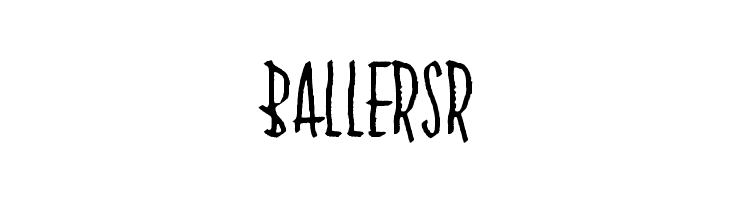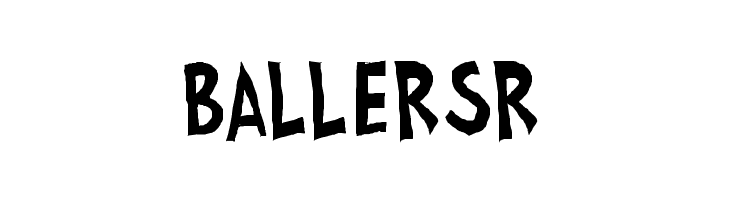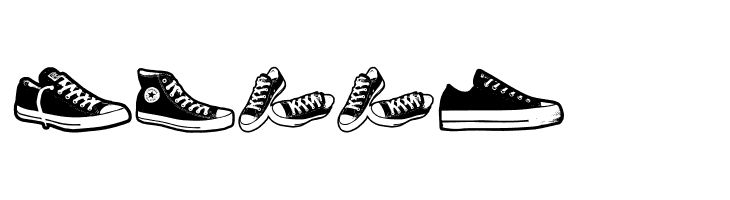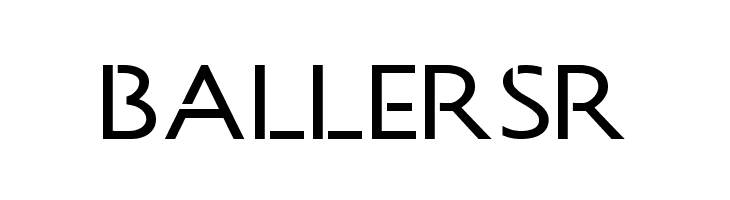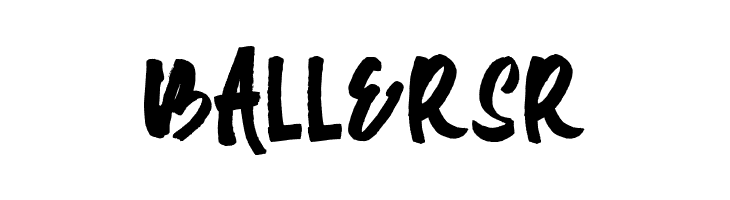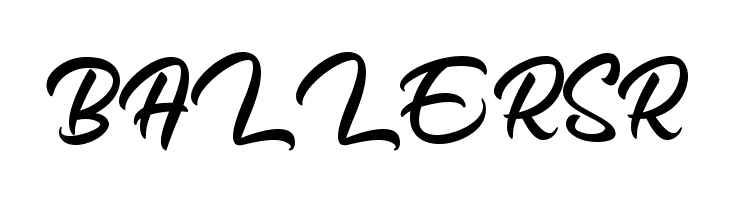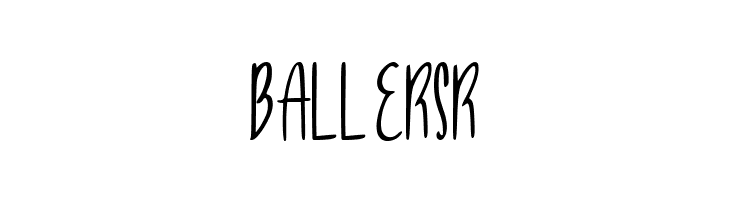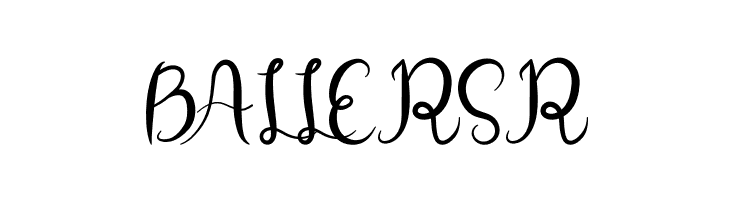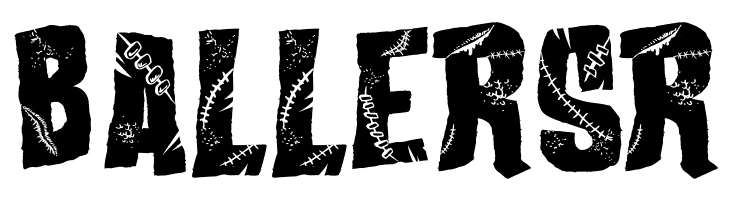
A bold, jagged, and dynamic font with a hand-cut appearance.
A bold, italicized font with a dynamic, brush-like style.
A bold, angular, and italicized font with a dynamic, edgy style.
A decorative font with cursive script letters inside bold heart shapes.
A bold, textured font with a stitched, handcrafted appearance.
Decorative icon font with seasonal and nature-themed pictograms.
A hand-drawn, playful font with irregular strokes and a vintage-modern blend.
A bold slab serif font with strong, geometric characters and block-like serifs.
A bold, geometric font with strong, uniform strokes and a commanding presence.
Hand-drawn sneaker illustrations form each character.
A bold, playful font with boxed characters and a hand-cut appearance.
A bold, modern typeface with geometric letterforms and strong visual impact.
A playful, handwritten font with tall, narrow characters and rounded edges.
A distressed, vintage-style font with a bold, weathered appearance.
A bold, clear font ideal for signage and public notices.
An elegant, flowing script font with a modern, handwritten style.
A graceful script font with decorative swashes and flowing cursive style.
A charming and elegant script font with flowing, cursive letterforms.
) ) A bold, slanted font with dynamic and energetic characteristics.
A modern, geometric font with clean lines and a minimalist style.
A bold, brush-style font with high contrast and dynamic character shapes.
A bold, brush-style font with a dynamic, hand-painted look.
A playful, handwritten font with smooth, flowing lines and a casual style.
A playful, handwritten font with tall, narrow letters and a casual style.
A playful, flowing script font with a casual, handwritten style.
A graceful cursive script with smooth, flowing lines and elegant connections.
A clean, modern semi-bold font with a balanced and professional appearance.
A semi-bold italic serif font with a modern and elegant style.
An ornate, calligraphic font with dramatic flourishes and historical elegance.
A dynamic and flowing script font with elegant cursive letterforms.